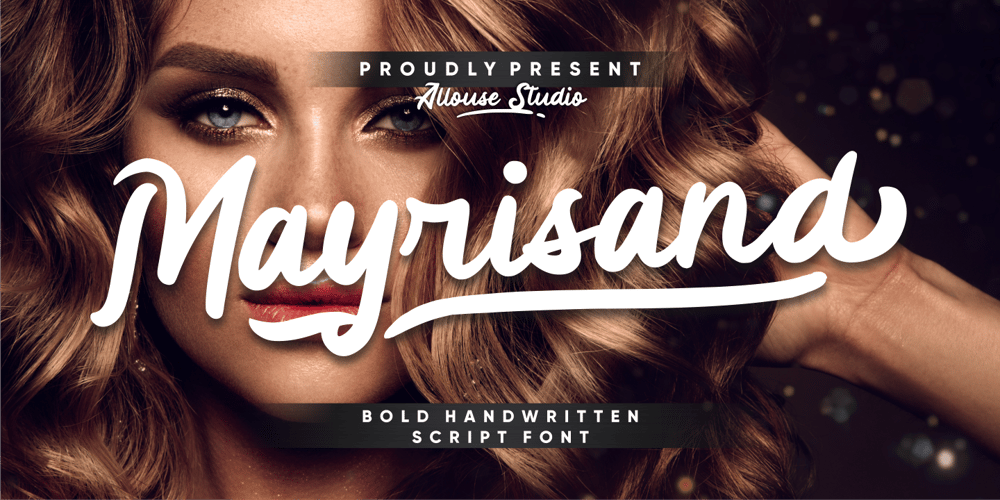
Mayrisand Font Family was designed by Fachrizal Yusuf and published by Allouse Studio. Mayrisand contains 1 styles and family package options. Mayrisand comes with many stylistic alternates, ligatures, and Multi-Lingual Support to give you much choices to play around.We highly recommend using a program that supports OpenType features and Glyphs panels like many of Adobe apps and Corel Draw, so you can see and access all Glyph variations.Mayrisand is perfect for any tittles, logo, product packaging, branding project, megazine, social media, wedding, or just used to express words above the background.